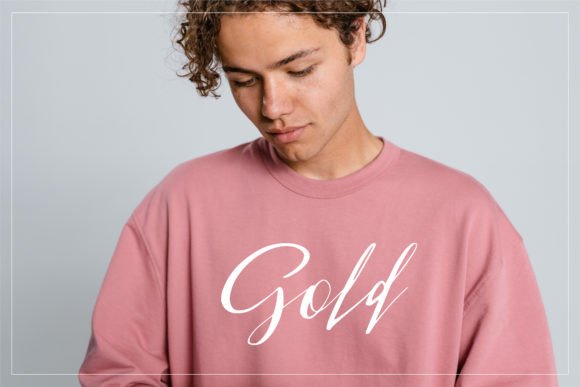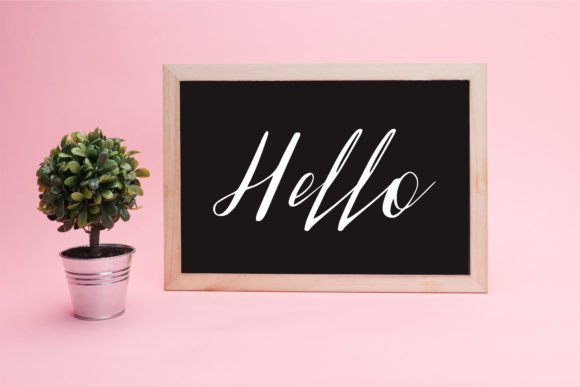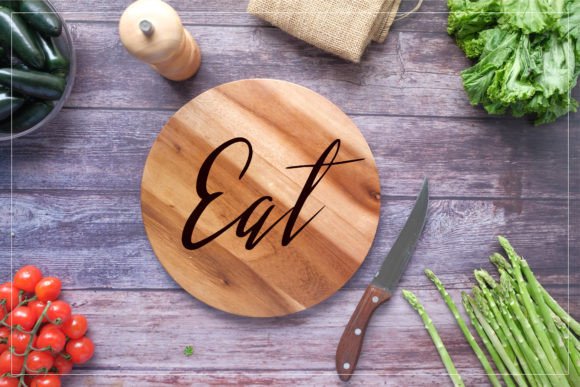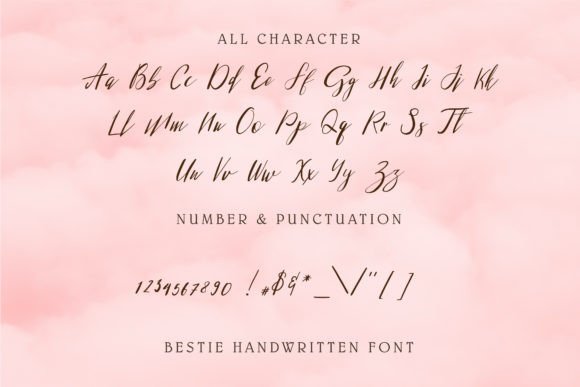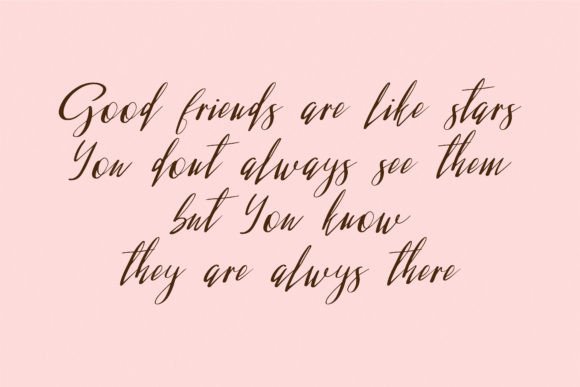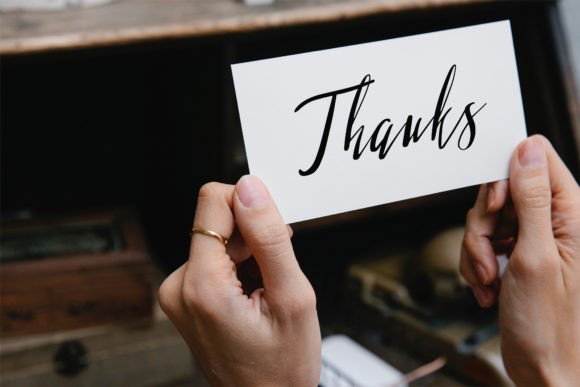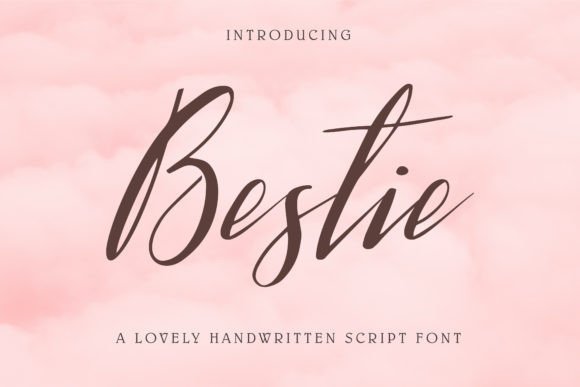
Introducing Bestie Font: The Ultimate Handwritten Font for Stunning Designs
Are you a designer or crafter looking for a beautiful handwritten font to elevate your design projects? Look no further than Bestie Font! This gorgeous font is perfect for creating stunning logos, branding materials, wedding invitations, business cards, and more. In this article, we’ll dive into the features and benefits of Bestie Font and explore how it can take your designs to the next level.
What is Bestie Font?
Bestie Font is a beautiful handwritten font designed to add a touch of elegance and sophistication to any design project. Its unique and flowing script makes it perfect for a wide range of applications, from logos and branding to wedding invitations and social media graphics.
Key Features of Bestie Font
- Handwritten script: Bestie Font features a beautiful handwritten script that adds a personal touch to any design project.
- Versatile: This font is perfect for a wide range of applications, including logos, branding, wedding invitations, business cards, greeting cards, signboards, posters, magazines, social media, planner prints, crafting, and websites.
- Elegant and sophisticated: Bestie Font’s unique and flowing script makes it perfect for designs that require a touch of elegance and sophistication.
Benefits of Using Bestie Font
So why choose Bestie Font for your design projects? Here are just a few benefits of using this amazing font:
- Stand out from the crowd: Bestie Font’s unique and beautiful script will help your designs stand out from the crowd and grab attention.
- Save time: With Bestie Font, you can create stunning designs in no time. Its easy-to-use format makes it perfect for designers and crafters with busy schedules.
- Professional results: Bestie Font is designed to deliver professional results, making it perfect for designers and crafters who want to create high-quality designs.
- Endless creative possibilities: With Bestie Font, the creative possibilities are endless. Use it for logos, branding, wedding invitations, and more to create stunning designs that impress.
Bestie Font in Action
So what can you create with Bestie Font? Here are a few examples of how this amazing font can be used:
- Logos and branding: Use Bestie Font to create stunning logos and branding materials that showcase your business’s personality and style.
- Wedding invitations: Create beautiful and elegant wedding invitations that set the tone for the big day.
- Social media graphics: Use Bestie Font to create stunning social media graphics that grab attention and drive engagement.
- Business cards: Create professional and stylish business cards that make a lasting impression.
Tips and Tricks for Using Bestie Font
Here are a few tips and tricks for getting the most out of Bestie Font:
- Experiment with different colors: Bestie Font looks great in a variety of colors, so don’t be afraid to experiment and find the perfect hue for your design.
- Play with font sizes: Bestie Font can be used at a variety of font sizes, from large and bold to small and delicate.
- Pair with other fonts: Bestie Font pairs well with a variety of other fonts, so don’t be afraid to get creative and try out different combinations.
In conclusion, Bestie Font is a beautiful handwritten font that’s perfect for designers and crafters looking to elevate their design projects. With its unique and flowing script, versatility, and ease of use, Bestie Font is a must-have for anyone looking to create stunning designs. Whether you’re creating logos, branding materials, wedding invitations, or social media graphics, Bestie Font is the perfect choice. So why wait? Download Bestie Font today and start creating stunning designs that impress!